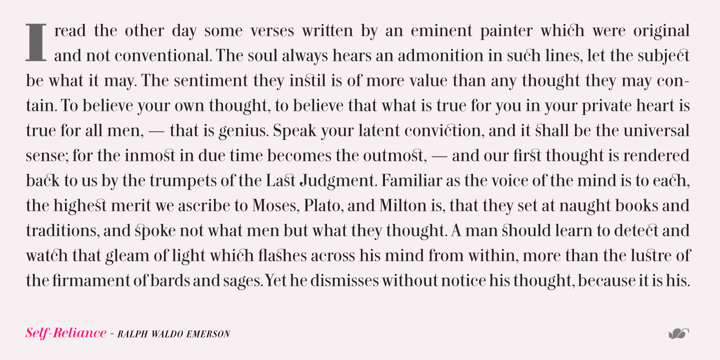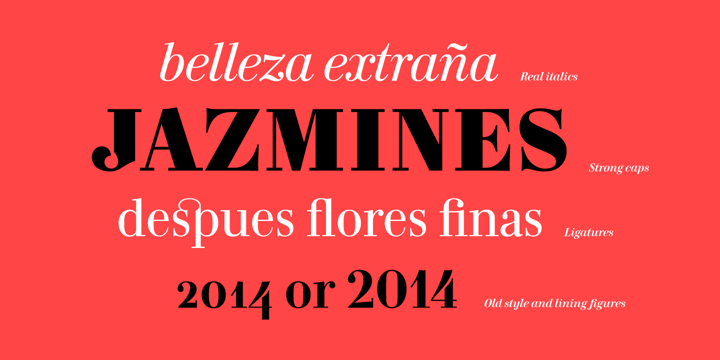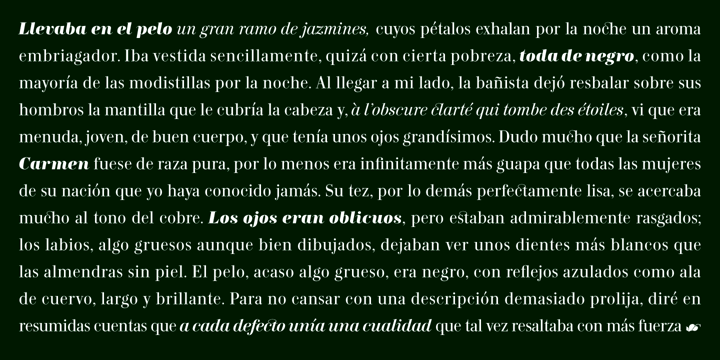
Carmen
Carmen™
by Typerepublic
Carmen Font Family was designed by Andreu Balius and published by Typerepublic. Carmen contains 6 styles.
About Carmen Font Family
Carmen is a text type family inspired on the famous Prosper Mérimée’s book character Carmen, the Spanish gypsy woman who defied her fate for the sake of love. It was first designed as a commissioned work for a new revised edition of the famous novel “Carmen”. The typeface has some sort of Latin Spanish-French flavor that leads us into the early nineteenth century but with a contemporary view. It works fine for both reading text and headlines. Its Italics provide a nice rhythm and dynamism within the text. The shapes of letters show a taste for elegance and extravaganza at the same time. Carmen Black exaggerates some of the details visible in the Regular and Medium styles, providing greater strength and character to the whole. A customized version of Carmen was used as a corporate typeface for Victoria’s Secret lingerie and women’s clothing company. It has been also used for fashion magazines in different countries since it includes an extended character set and a complete set of ligatures, also. Carmen typeface was selected as one of the best typefaces in 2008 by typographica.org website. Carmen typeface was selected as one of the “Top Type of 2009” by FontShop International.
About Typerepublic
Typerepublic is an independent type foundry based in Barcelona dedicated to the design and distribution of digital fonts. Founder and principal designer Andreu Balius has experienced type design since the late 1980s.Founded in 2003, Typerepublic shows an exclusive collection of typefaces to be distributed throughout this website. We share an especial interest in those aspects of local style culture. Some of the typefaces are based on the Iberian typographic tradition and they are, in turn, products of a contemporary view of our local history. In addition to our exclusive retail typefaces, Typerepublic offers custom font design that responds to customer needs and identity requirements. It offers any type of design solution, from desktop to web fonts. Also, we could provide both Latin and non-Latin multiscript type families. Some of the fonts in the catalog have been awarded several Certificates of Excellence in Type Design given by the Type Directors Club in New York and the Association Typographique Internationale (ATypI).